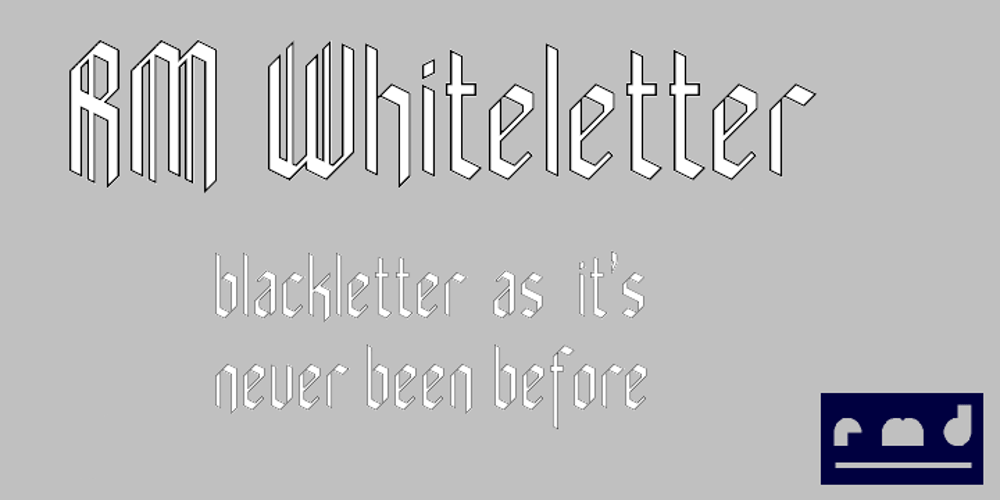
RM Whiteletter
RM Whiteletter font
RM Whiteletter Font Family was designed by Ray Meadows and published by Ray Meadows. RM Whiteletter contains 1 styles and family package options. It is reasonable to assume that a majority of people interested in typography will attempt some variation on the blackletter theme at some time or another. However, there seems to be a paucity of open-faced designs in this style and, having played around with a few thoughts, eventually I came up with RM Whiteletter. Light in appearance but classical in design, this clean looking open-face font provides a good counterpoint to more traditional blackletter designs. This font includes both the full Latin-1 Supplement & Latin Extended-A sets.